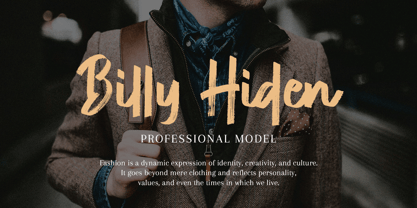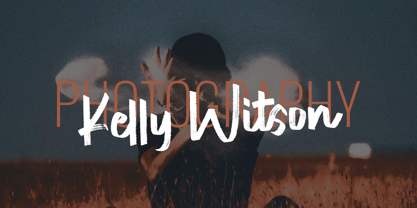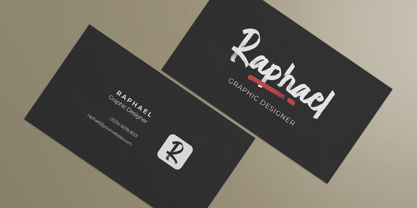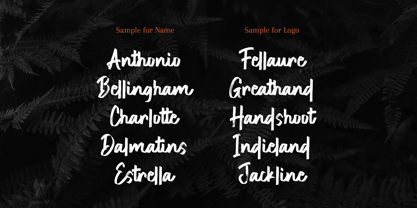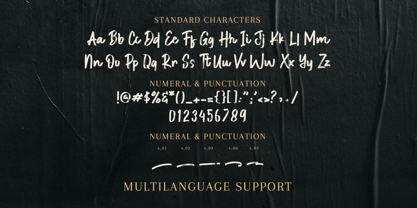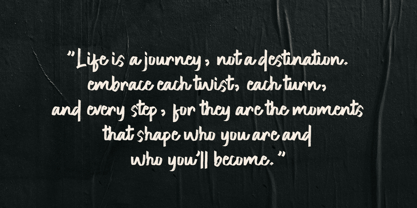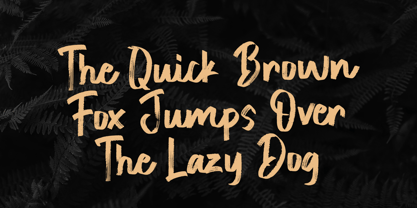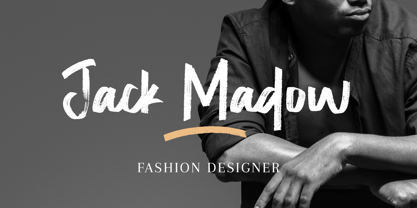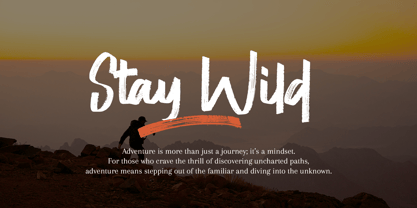
Hideline
by MJB Letters
The Hideline Font Family was designed by Muhammad Mujibulloh and published by MJB Letters. Hideline contains 1 styles. More about this family
Hideline Handwritten Brush Font is a bold and textured handwritten font that combines a natural, expressive feel with a touch of strength. Hideline font features bold strokes and a textured finish, giving it an organic, handcrafted appearance. Additionally, Hideline font is perfect for a variety of design projects, adding a bold and dynamic character to any creation.
Ideal Uses for Hideline Handwritten Brush Font
This Hideline handwritten brush font is ideal for use in branding, logos, posters, headlines, social media posts, packaging, and more. Whether you’re working on a bold brand identity, a creative project, or an eye-catching advertisement, Hideline font brings an impactful and stylish element to your designs. Furthermore, the textured brush strokes give a sense of energy and creativity, making it suitable for both casual and bold applications.
Versatility of Hideline Font in Different Contexts
Not only is Hideline font visually striking, but it is also highly versatile. The font works well across different media, from digital designs to printed materials. Its clean yet textured design ensures that it stands out in large formats, such as posters and banners, while remaining legible in smaller sizes, such as business cards and website headings.
Adding a Unique Touch with Hideline Font
With Hideline font, you can easily add a unique, handcrafted touch to your design work. The bold and textured brush style creates a strong connection with your audience, giving your projects a distinct, artistic flair. Perfect for graphic designers, branding professionals, event planners, and anyone looking to create designs with a bold and creative edge.
Conclusion: Why Choose Hideline Handwritten Brush Font?
In conclusion, Hideline handwritten brush font is the perfect choice for anyone seeking a bold, creative, and modern font. Whether you need it for branding, posters, invitations, or any other design project, Hideline font brings an energetic, artistic touch with a natural twist. Finally, add this versatile font to your toolkit and start creating powerful, memorable designs today!
Designers: Muhammad Mujibulloh
Foundry: MJB Letters